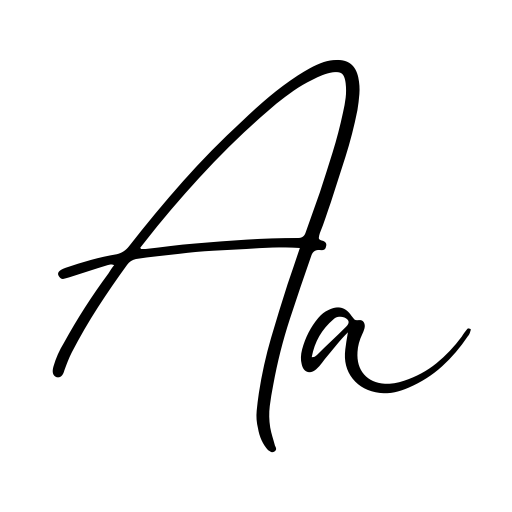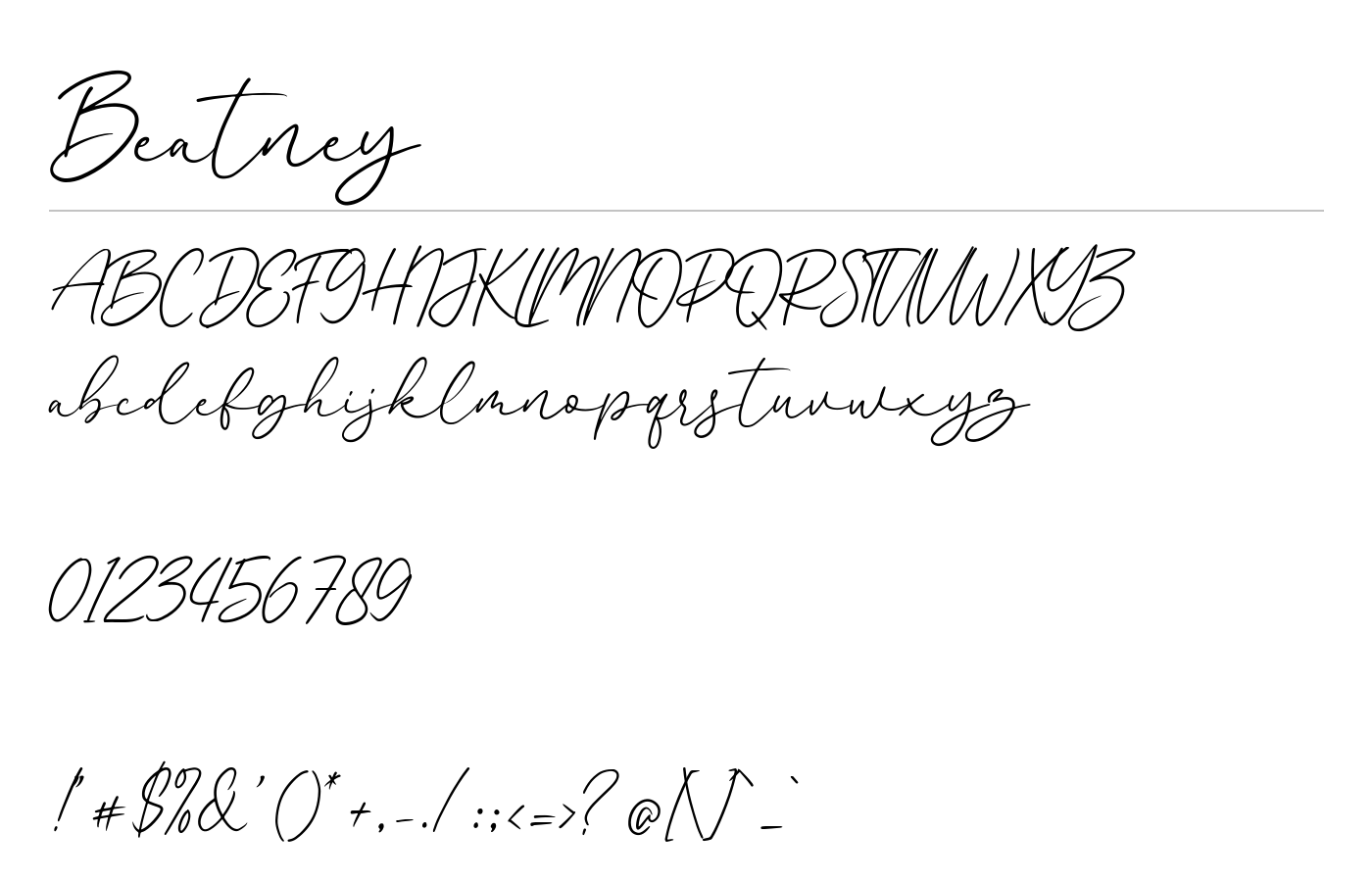
Beatney is a delicate and elegant script font that mimics natural, flowing handwriting with a slender, light stroke weight and graceful curves. Its tall x-height and slightly condensed letterforms give it a refined yet casual feel, making it perfect for personal branding, invitations, and stylish editorial use where a touch of sophistication and warmth is desired. This font’s airy, handwritten charm adds a modern, intimate personality that suits lifestyle, fashion, and creative design projects aiming for a friendly yet elegant tone.
Beatney Font
About Beatney Font